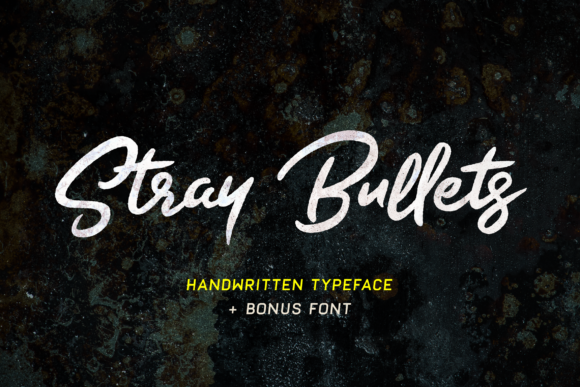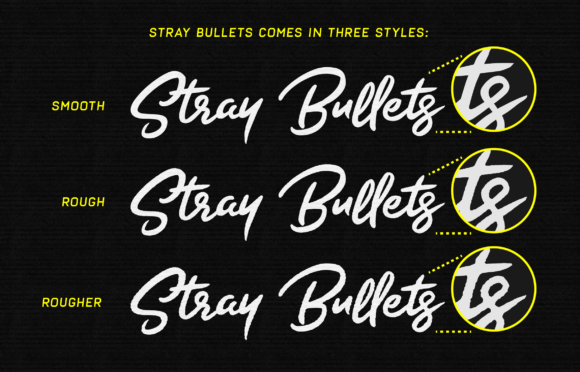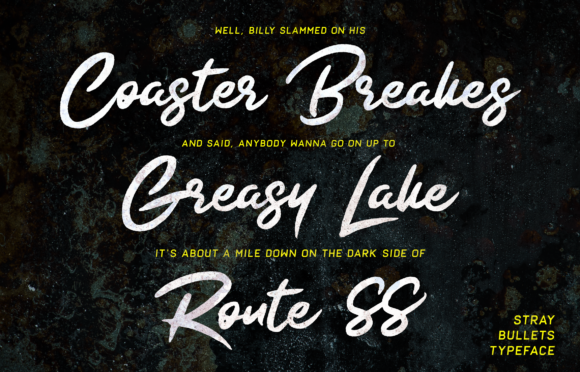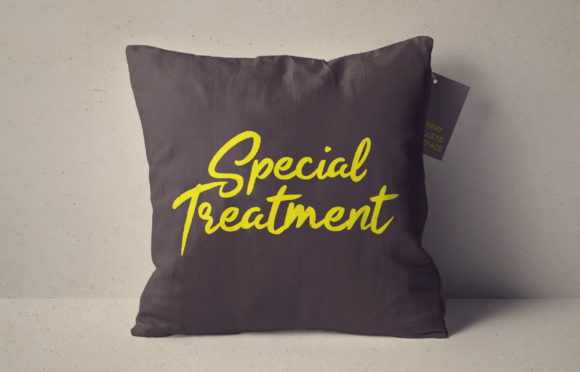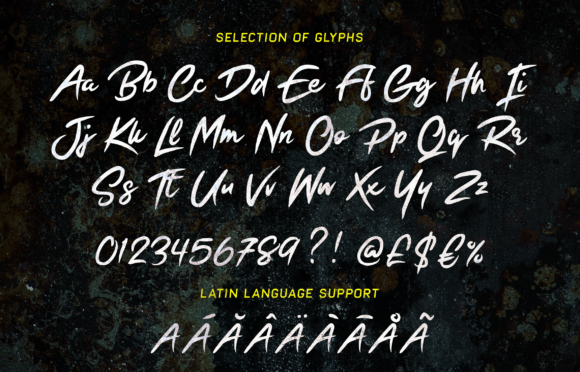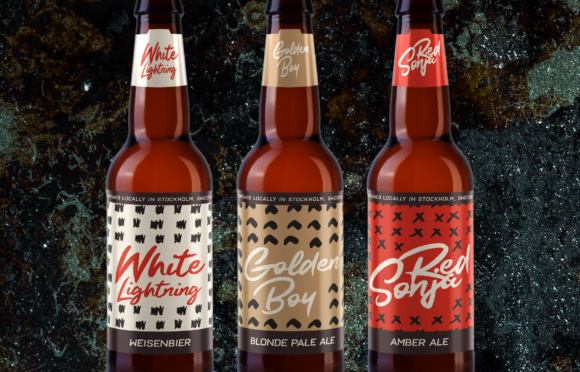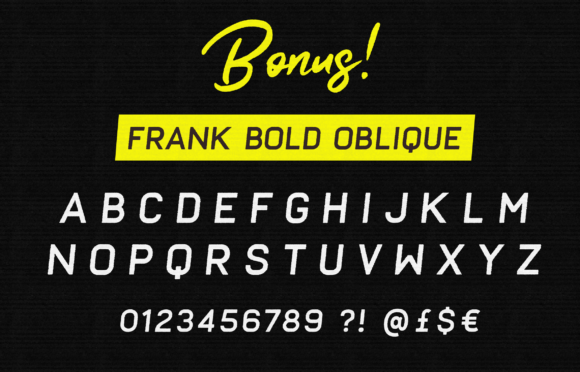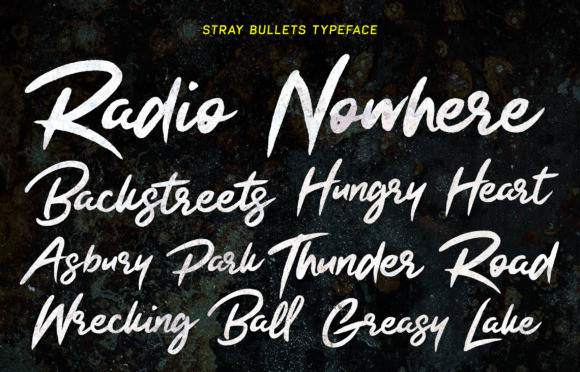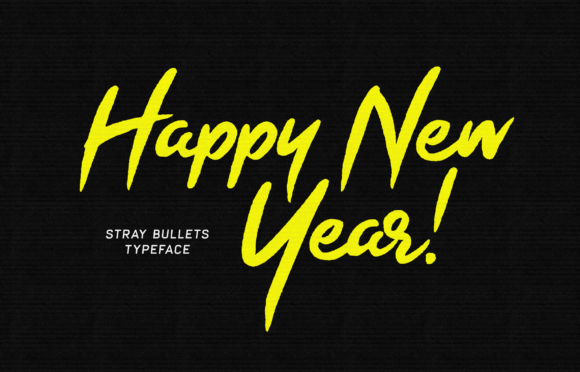
Stray Bullets Font
About Stray Bullets Font
Stray Bullets is a brush-driven handwritten font with tons of personality! Bouncy and full of imperfect characters, Stray Bullets is perfect for giving your designs a relaxed yet stylish appeal. This download comes with an added bonus font, Frank!